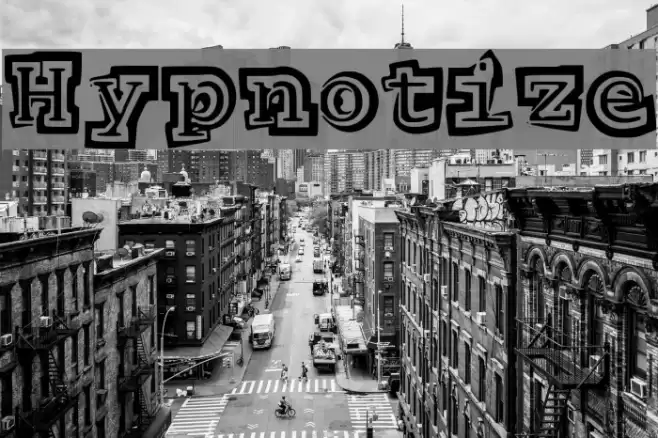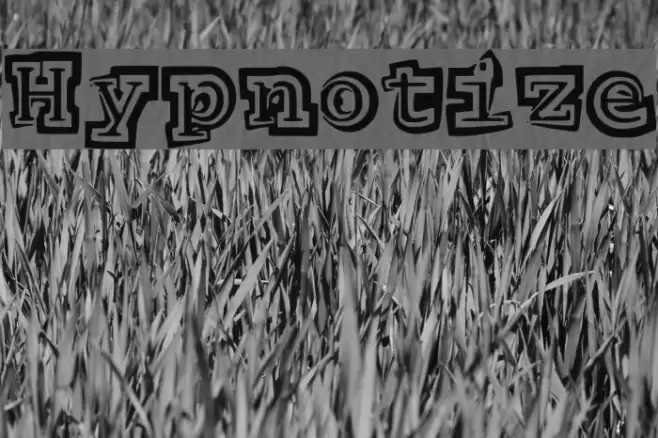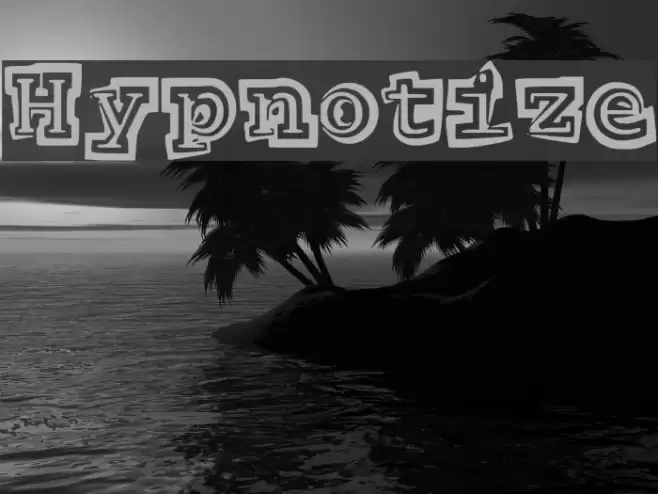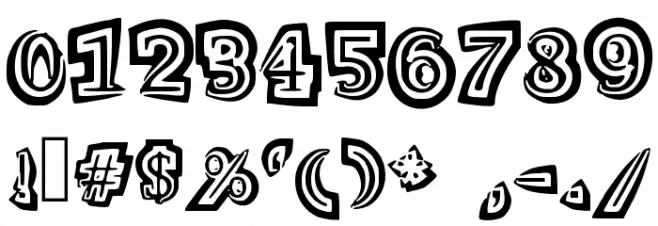
Hypnotize Font
Hypnotize Description
This font features a bold, playful style with a distinct outline that gives each character a three-dimensional effect. The letters are slightly irregular, adding a whimsical and dynamic feel. The uppercase and lowercase letters maintain a consistent style, with exaggerated serifs and a bold presence. Numbers and special characters follow the same playful design, making the font versatile for various creative projects. The overall appearance is eye-catching, making it suitable for designs that require a fun and engaging look.
A bold, playful font with a three-dimensional outline and whimsical style from Uncategorized fonts.
- Proposed Projects: Ideal for children's books, comic strips, playful branding, and eye-catching posters.
- Overall Style: Playful, Whimsical
- Use Case: Headlines, Posters, Branding